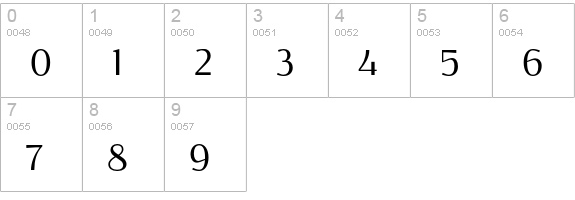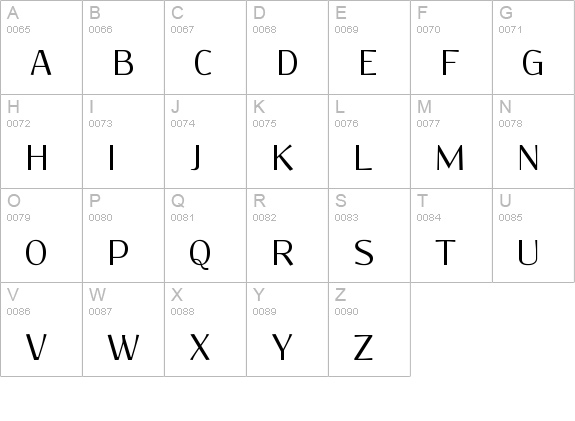
Resagokr is a free for personal use font in the Modern > Techno category. It has been downloaded 22 times and is available for Windows, Mac and Linux.
Resagokr font is a stunning display typeface that exudes elegance and sophistication. With its intricate details and bold lines, this font is sure to make a statement in any design project. Whether used for a logo, headline, or invitation, Resagokr font commands attention and adds a touch of class. What makes Resagokr font even more appealing is that it is completely free. That's right, this exquisite font can be downloaded at absolutely no cost from FontsMarket.com. This means that designers, creatives, and enthusiasts alike can access and utilize Resagokr font without any financial constraints. The versatility of Resagokr font is truly remarkable. Its clean and modern aesthetic makes it suitable for a wide range of design applications. From branding and packaging to website design and social media graphics, Resagokr font effortlessly adapts to various styles and mediums. The attention to detail in Resagokr font is evident in its carefully crafted letterforms. Each character is meticulously designed, ensuring a harmonious flow and balance throughout the entire typeface. The result is a visually pleasing font that captures the essence of refinement. With Resagokr font, designers have the freedom to explore their creativity and bring their visions to life. Its timeless appeal and versatility make it a valuable asset in any design toolkit. So why wait? Head over to FontsMarket.com and download Resagokr font today, and elevate your designs to new heights of elegance and sophistication.